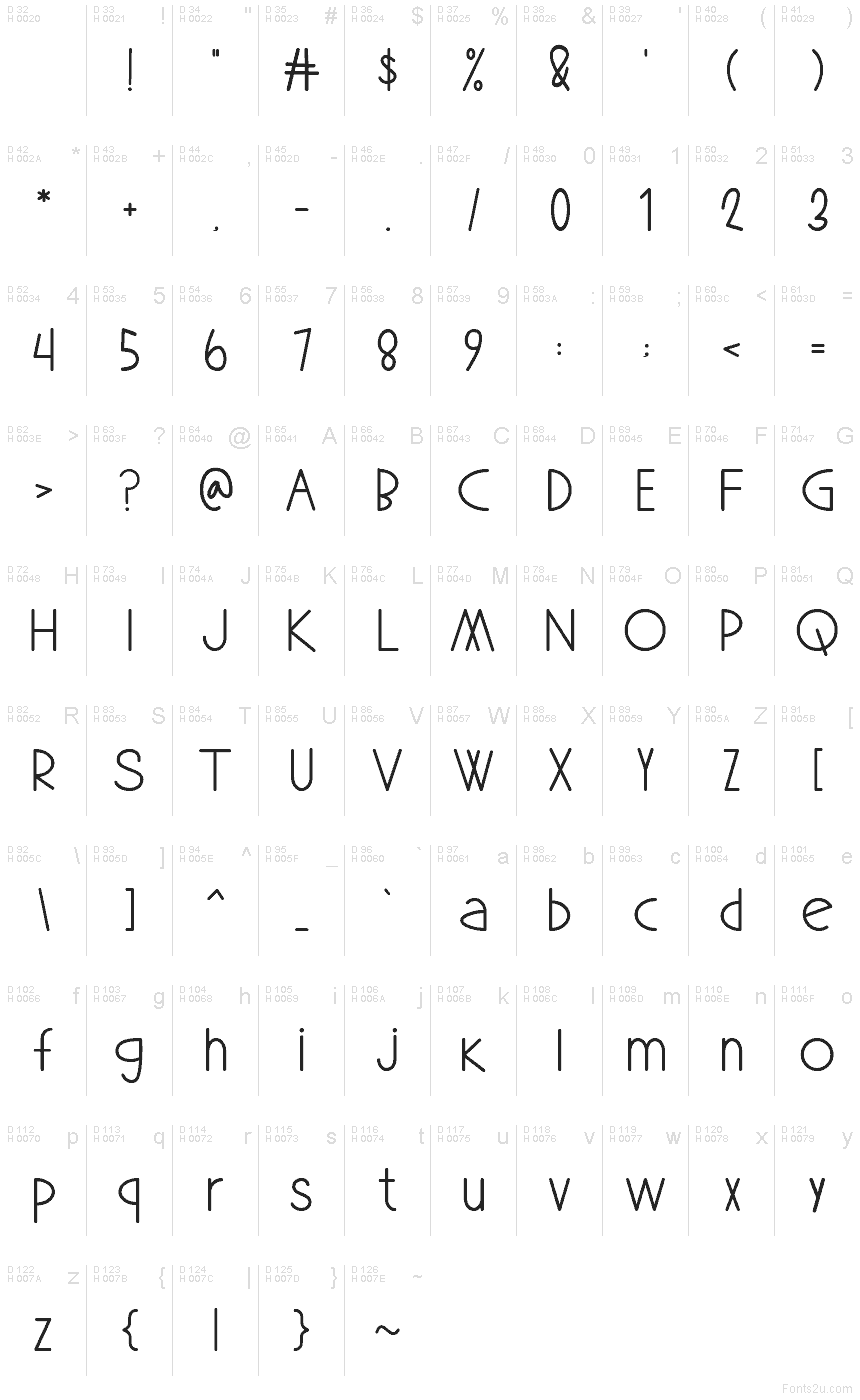
Lucky Dori
Lucky Dori font is a light handwritten font by Wildan Type with a minimalist geometric appearance. It has clean lines where letters are easily readable and give off a contemporary modern look overall. With every glyph having its own unique quality, it stands as one of the most versatile fonts due to its almost neutral nature that matches different designs.
This free handwritten font will offer visual enhancements in websites, applications, games, magazines, posters, apparel designs and packaging projects. It can also form creative logotypes for brands from different industries.